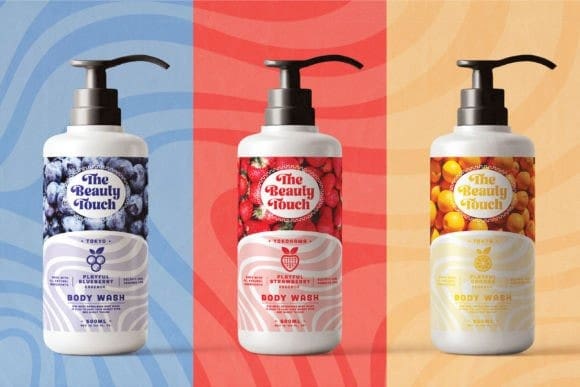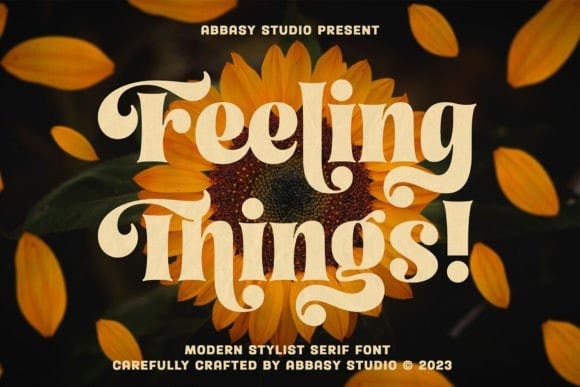
Feeling Things Font
Feeling Things Font is a modern Serif font with retro vibes. It was inspired by the 70s retro typography designs. It is perfectly suitable for logos, invitations, labels, logos, magazines, books, greeting/wedding cards, packaging, fashion, make-up, stationery, novels, or labels.